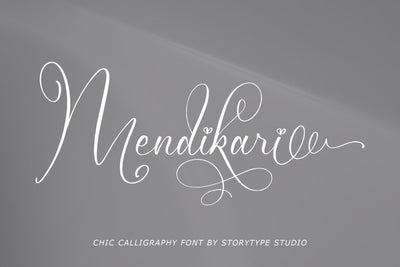
Mendikari - Chic Calligraphy Font
Proudly present Mendikari - Chic Calligraphy Font , created by Storytype,
A luxury script that has own unique style & modern look.